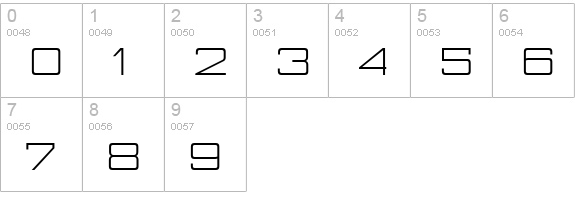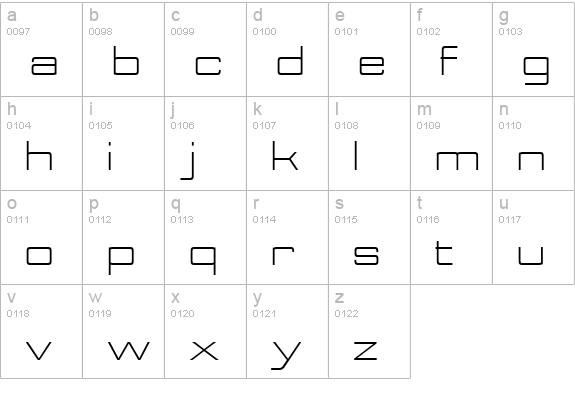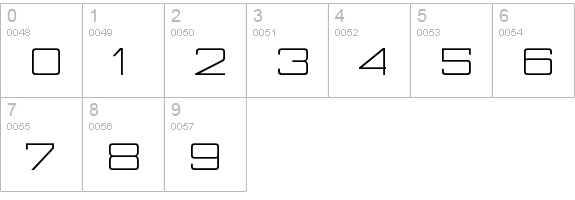
NesobriteExBk-Regular Font Details
NesobriteExBk-Regular is the standard, neutral variant in the NesobriteExBk typeface family \xE2\x80\x94 well suited to general body text, paragraphs, and standard typographic work.
NesobriteExBk-Regular font is a versatile and modern typeface that exudes elegance and sophistication. With its clean lines and balanced proportions, this font is perfect for a wide range of design projects, from branding to editorial design. The sleek and professional look of NesobriteExBk-Regular font makes it a popular choice among designers looking to add a touch of sophistication to their work. What makes NesobriteExBk-Regular font even more appealing is the fact that it is available for free download at FontsMarket.com. This means that you can access this high-quality font without having to spend a penny, making it a great option for designers on a budget. Whether you're working on a personal project or a client's design, NesobriteExBk-Regular font is sure to elevate your work with its timeless appeal and versatility. Don't miss out on the opportunity to enhance your design projects with NesobriteExBk-Regular font. Download it for free today at FontsMarket.com and take your designs to the next level.